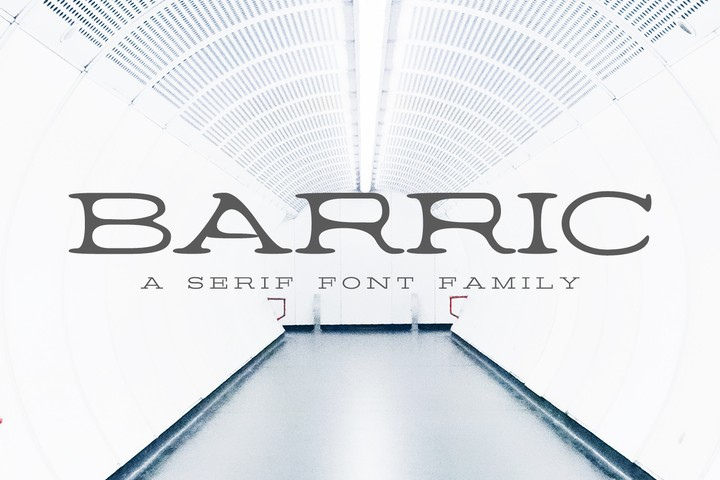
Barric Font
Barric Font is perfect for industrial branding, construction company logos, manufacturing signage, engineering documentation, architectural presentations, heavy machinery graphics, metalwork business cards, and rugged corporate communications.
Barric Font is exciting because it embodies structural strength with bold, angular letterforms and industrial character details that evoke mechanical precision and engineering excellence. Its robust personality creates immediate associations with durability and professional craftsmanship that resonates with audiences seeking reliable industrial solutions and sturdy construction quality.
Barric Font family includes regular weight with industrial alternates and structural variations, providing designers with comprehensive options for creating powerful typography solutions that project engineering strength and industrial authenticity.
Barric Font Free Download delivers premium industrial typography that establishes mechanical authority and structural credibility. This expertly crafted typeface demonstrates exceptional attention to engineering detail through its angular letterforms and industrial construction that creates genuine mechanical appeal without sacrificing modern functionality. The font's structural character makes it particularly suitable for construction companies, manufacturing firms, engineering consultancies, and industrial organizations seeking to establish powerful visual identity that resonates with clients requiring reliable structural expertise and mechanical precision.
Professional designers consistently choose Barric Font for projects requiring industrial authenticity and engineering visual impact. Its structural character works magnificently in construction environments, manufacturing facilities, engineering presentations, and industrial marketing where mechanical competence and structural reliability drive client confidence. The font's robust nature creates dependable brand experiences that communicate engineering excellence and industrial capability.
The Barric Font download package includes industrial alternates, structural variations, and engineering symbols that enhance its mechanical appeal and design functionality. This comprehensive collection ensures professional results in industrial design projects requiring authentic typography character. The font performs exceptionally across both digital and print applications where its structural details and engineering proportions create significant industrial value and mechanical distinction.
Engineering teams appreciate Barric Font's ability to communicate industrial reliability and structural sophistication in competitive construction markets. Its robust styling transcends decorative typography approaches while maintaining the strength required for industrial positioning, making it an essential tool for organizations seeking to establish mechanical credibility through superior industrial typography and exceptional engineering communication.